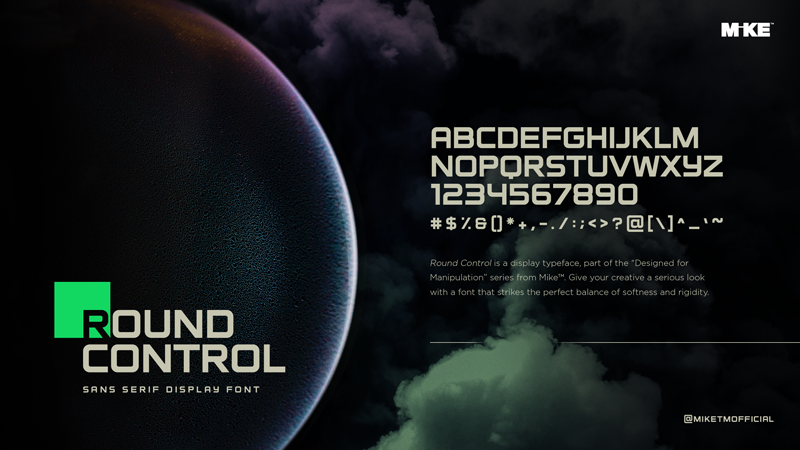
Font name: | Round Control |
Author: | Michael Cox |
Note by Michael Cox | |
Round Control is a display typeface, part of the �Designed for Manipulation� series from Mike�. Give your creative a serious look with a font that strikes the perfect balance of softness and rigidity. |